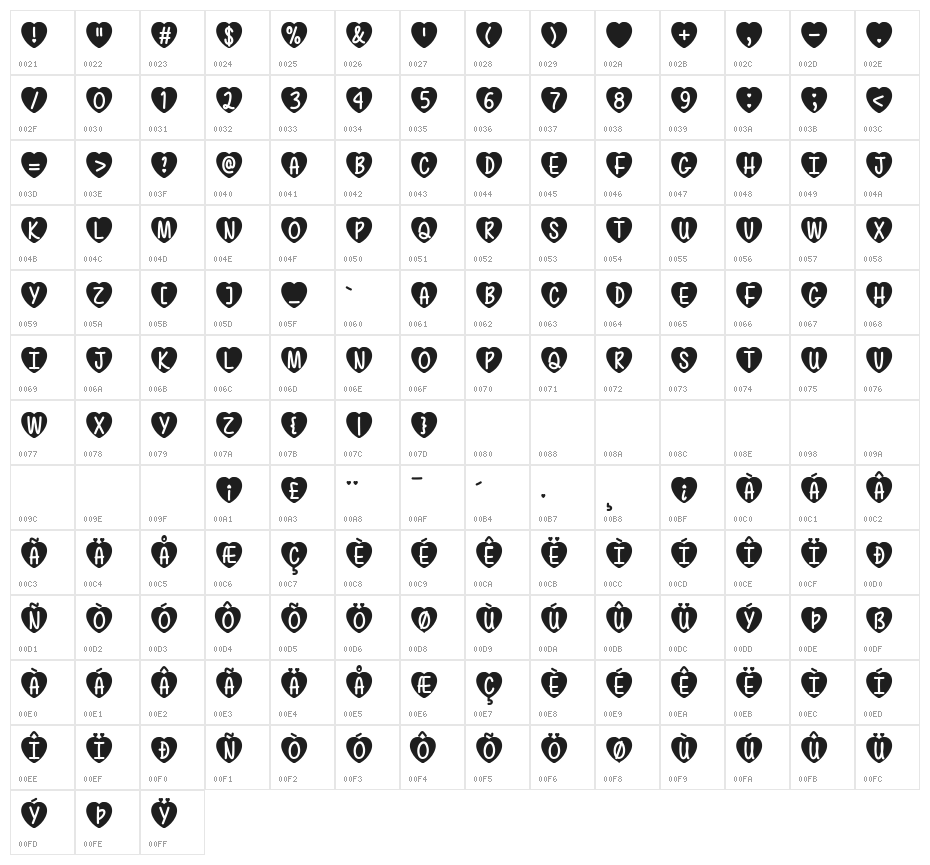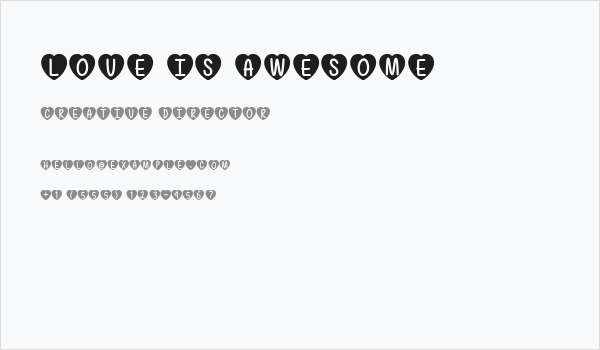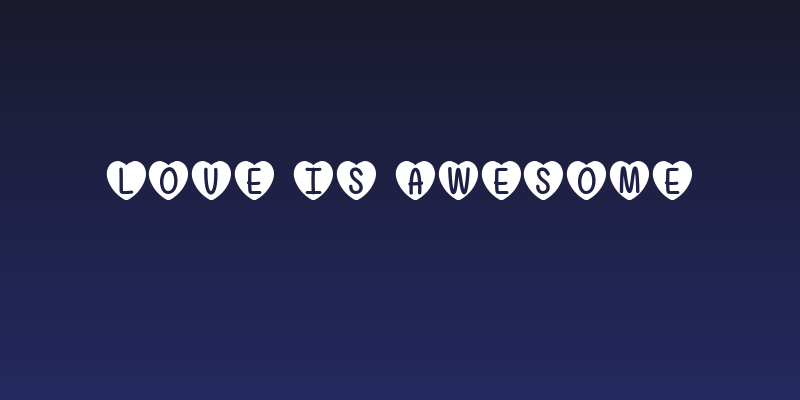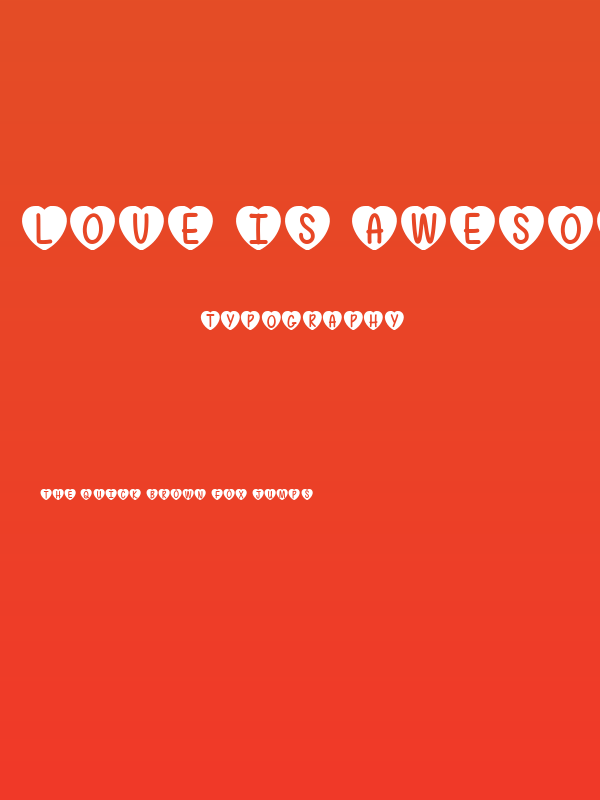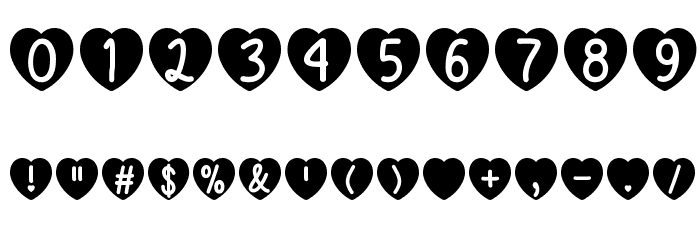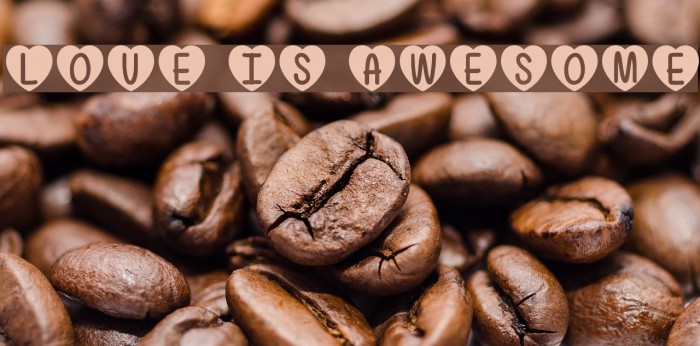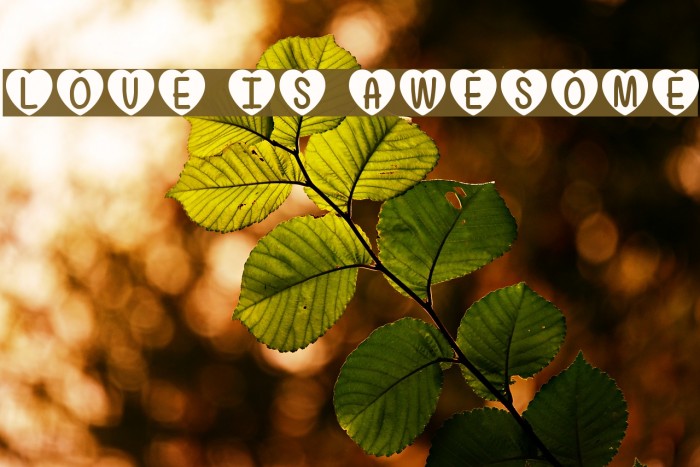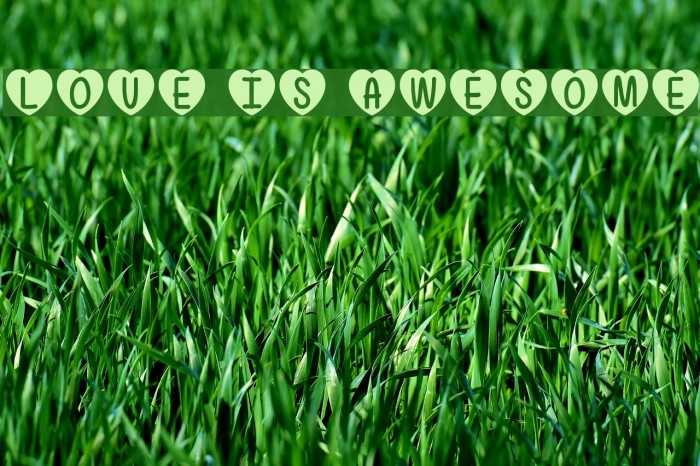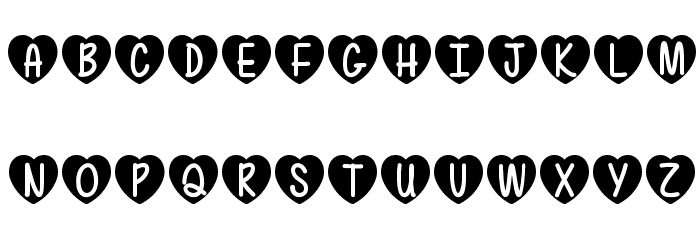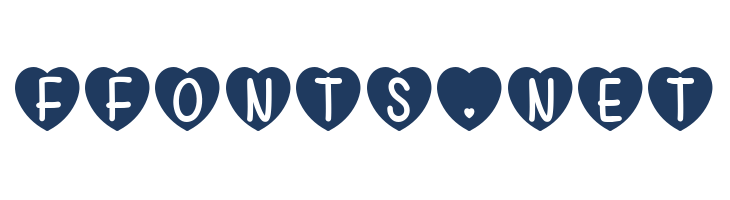
Love Is Awesome Font
This playful and decorative font features characters enclosed within heart shapes, creating a whimsical and romantic aesthetic. The letters are bold and rounded, with a casual handwritten style that adds a personal touch. The heart enclosures make each character stand out, providing a unique and eye-catching appearance. This font is perfect for projects that aim to convey love, affection, or a fun and lighthearted mood. The combination of bold lettering and heart shapes makes it ideal for creative and expressive designs.
| Proposed Projects | Ideal for Valentine's Day cards, wedding invitations, love-themed posters, and playful branding. |